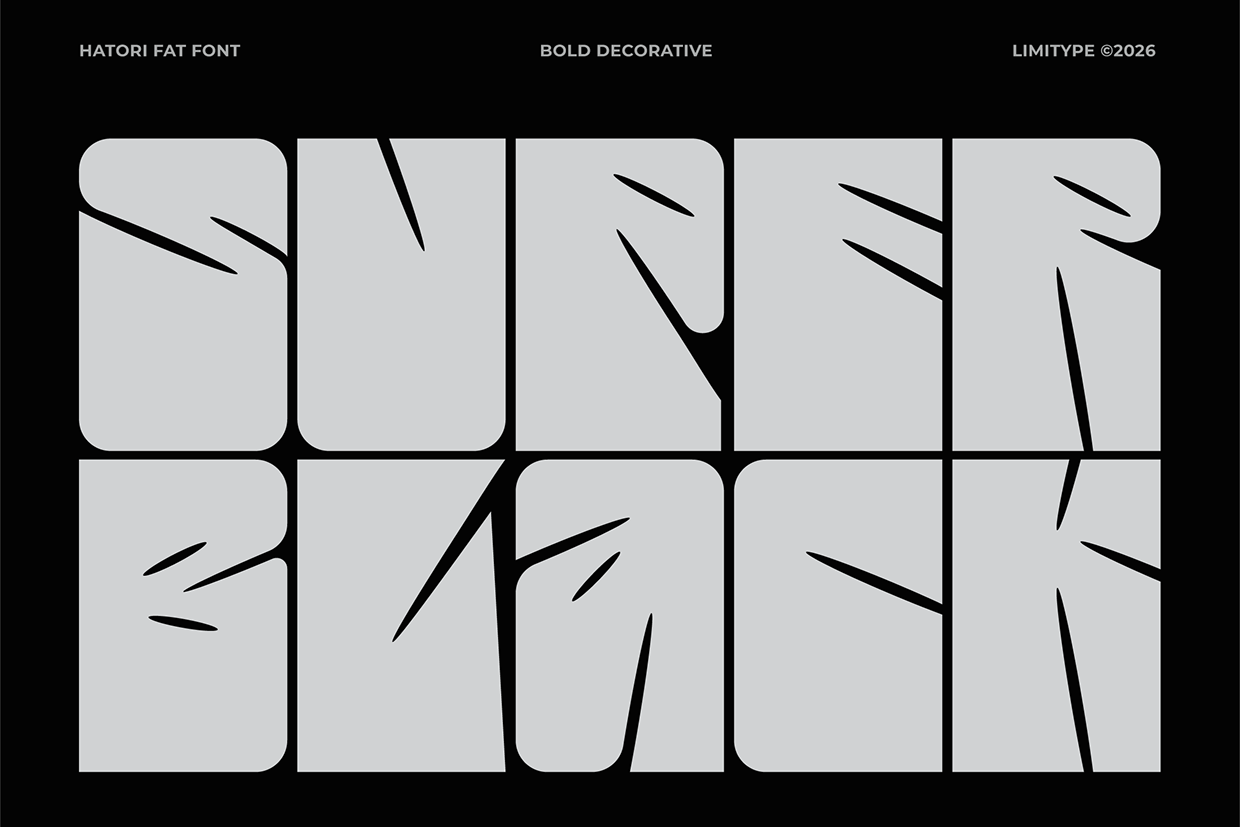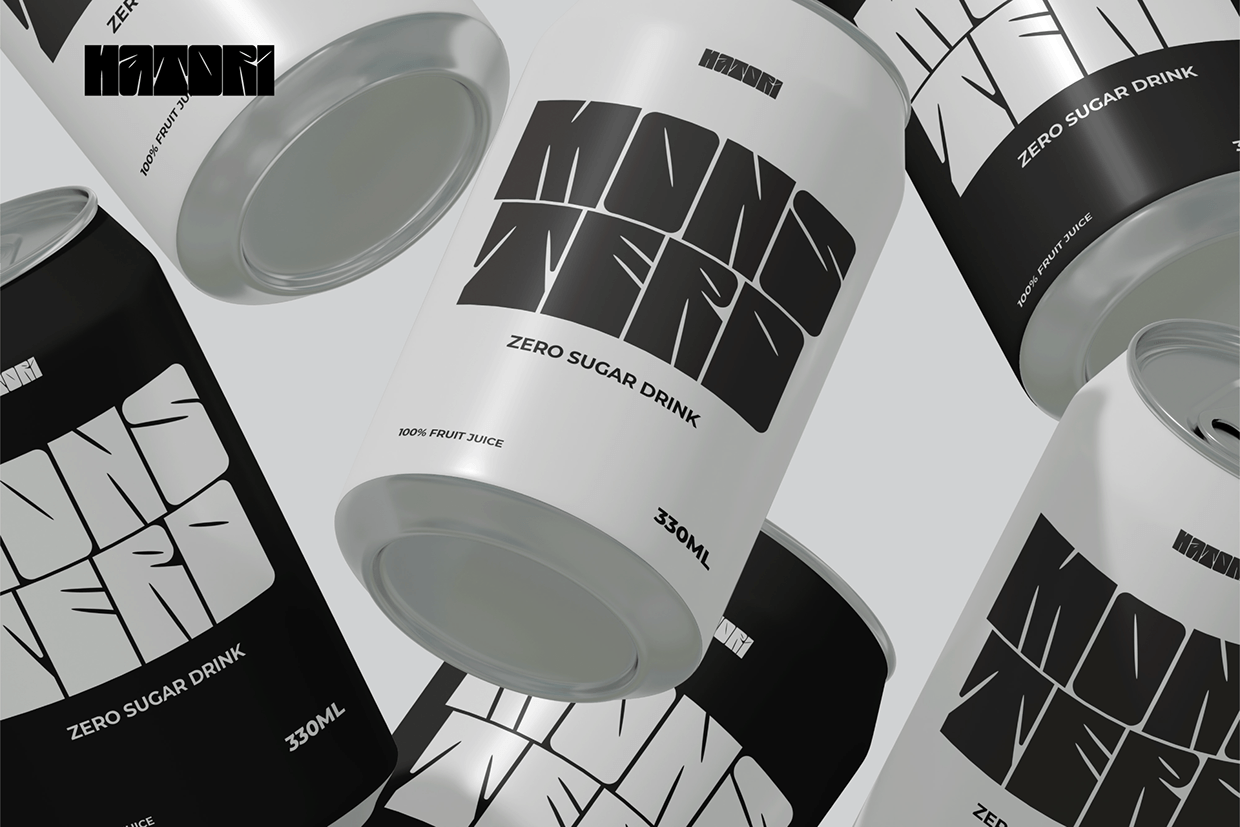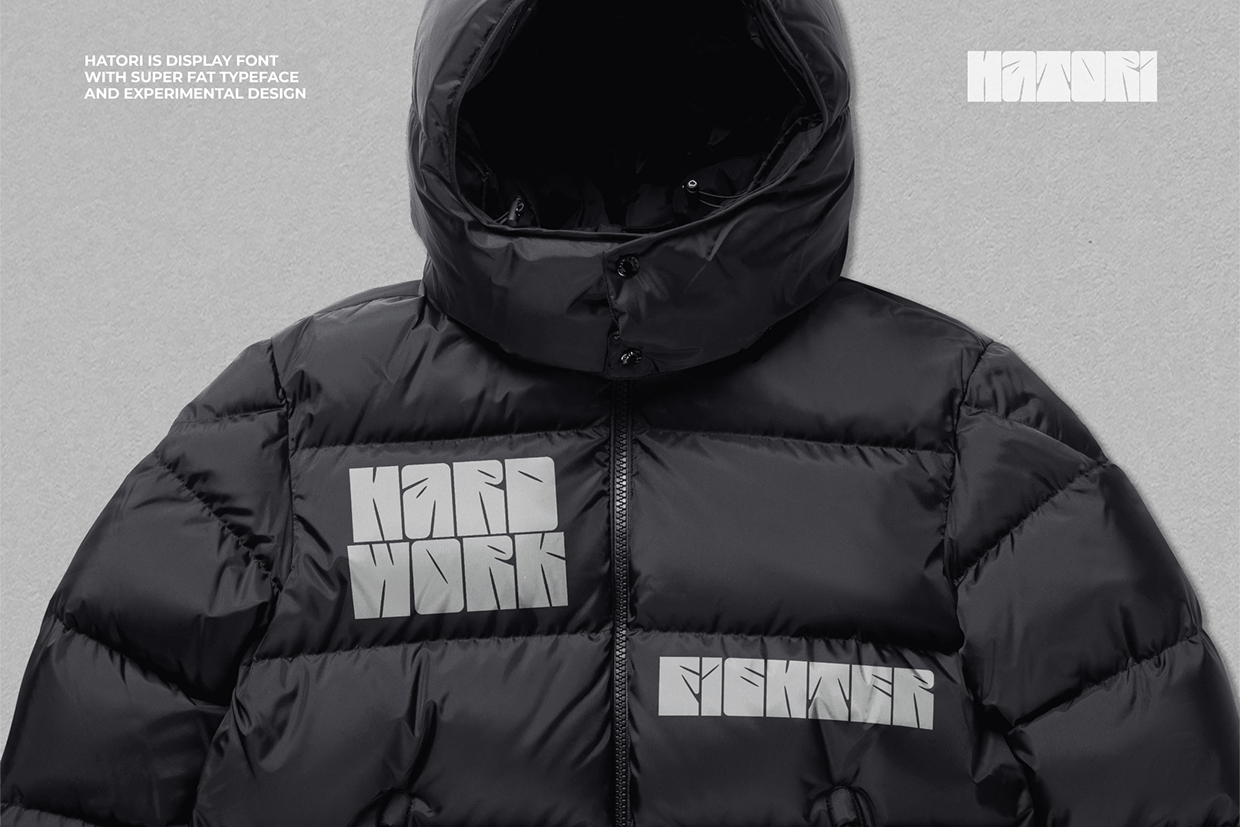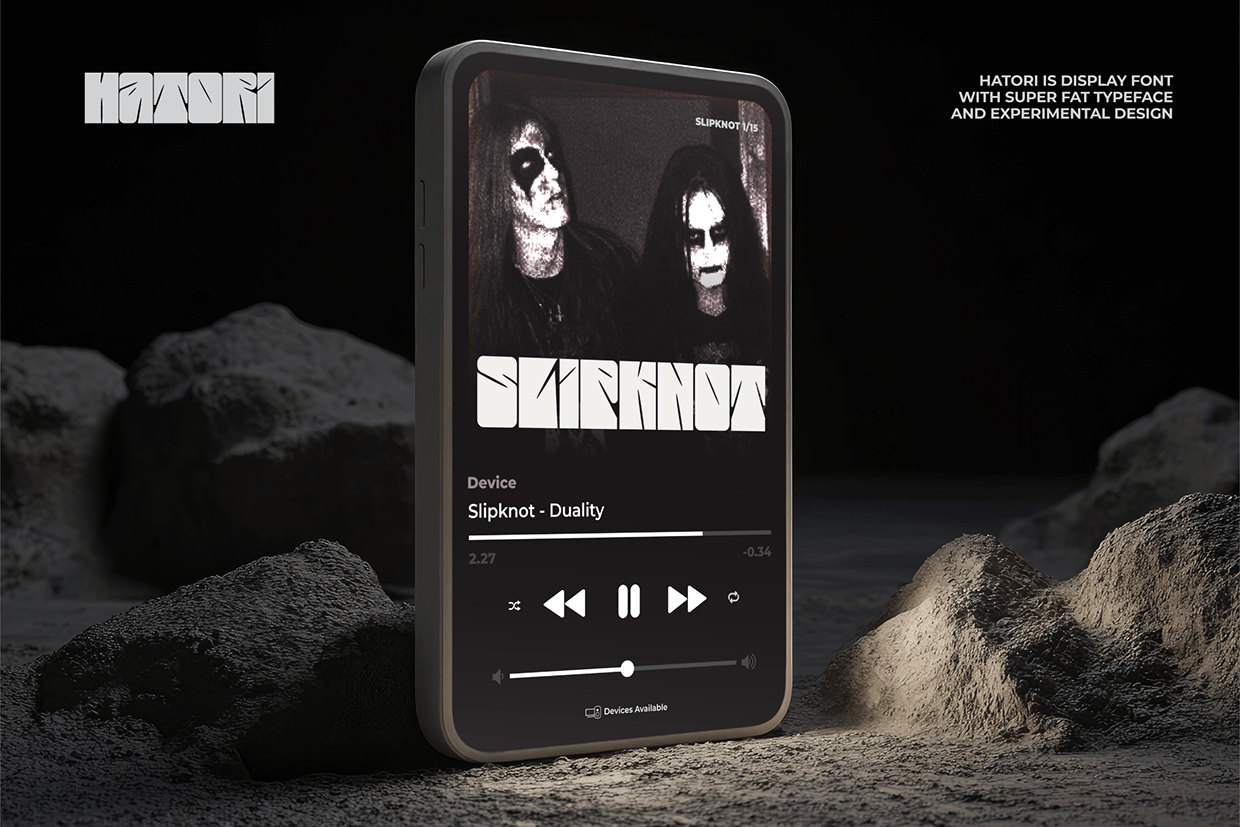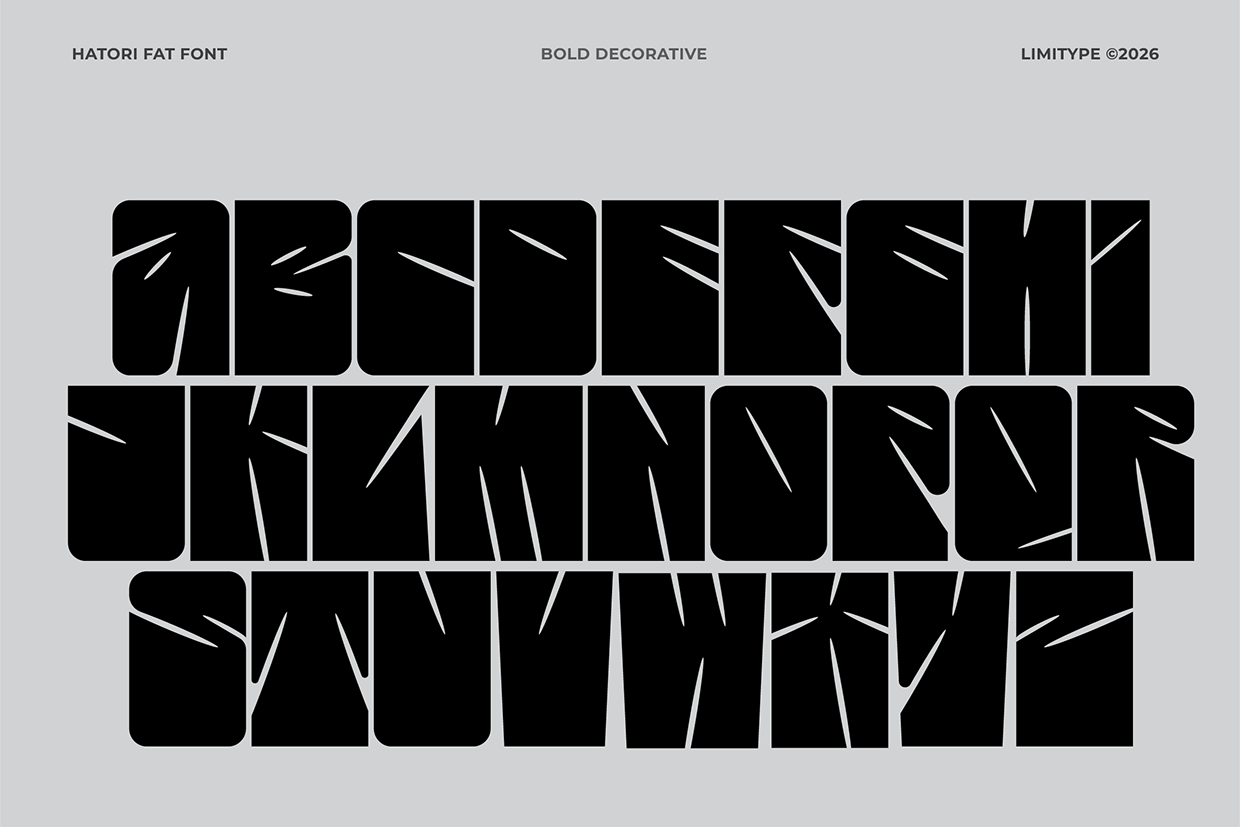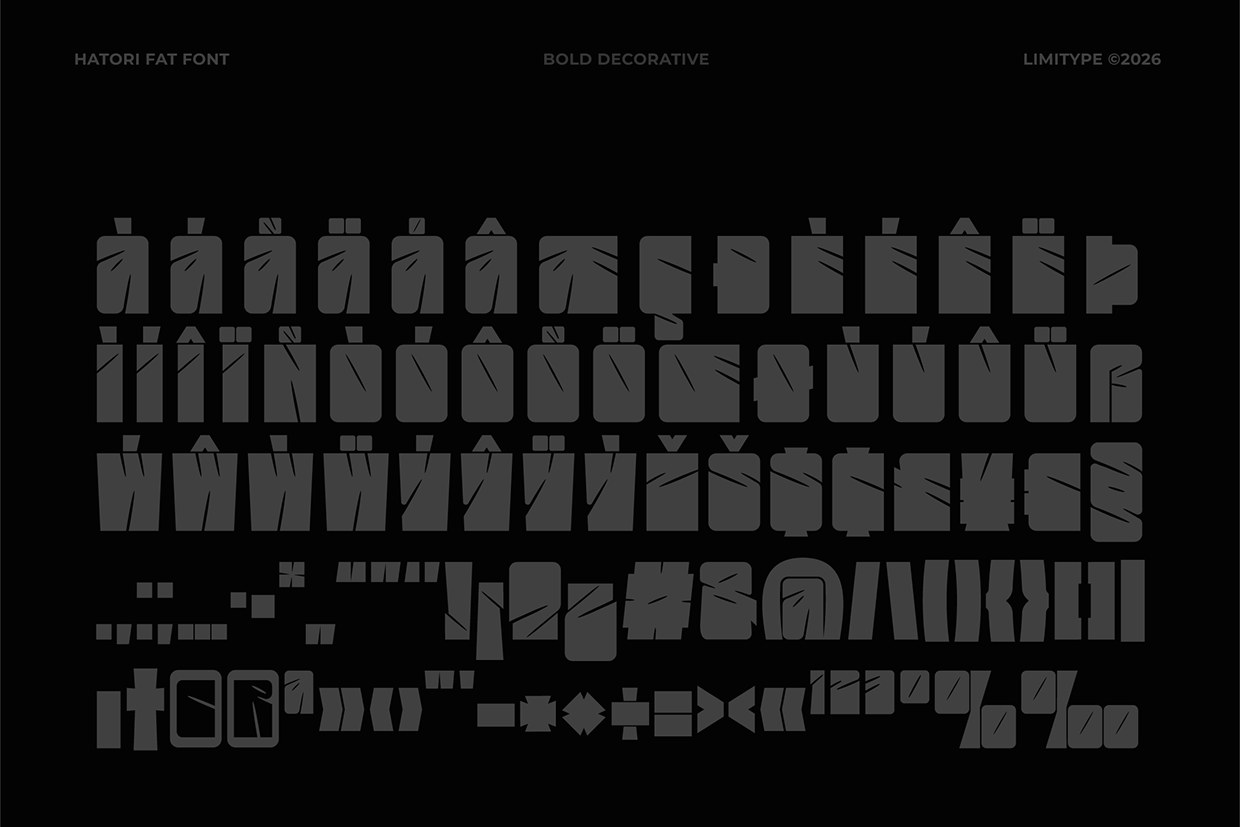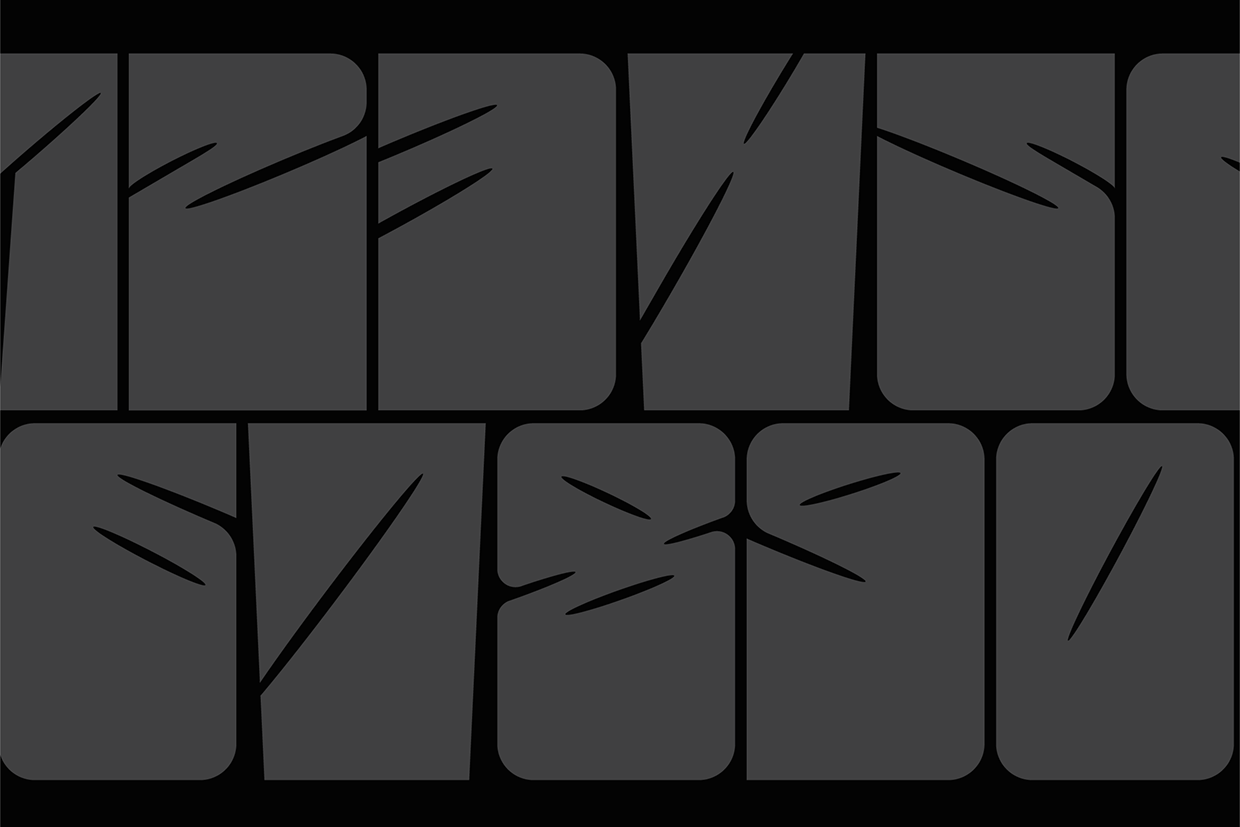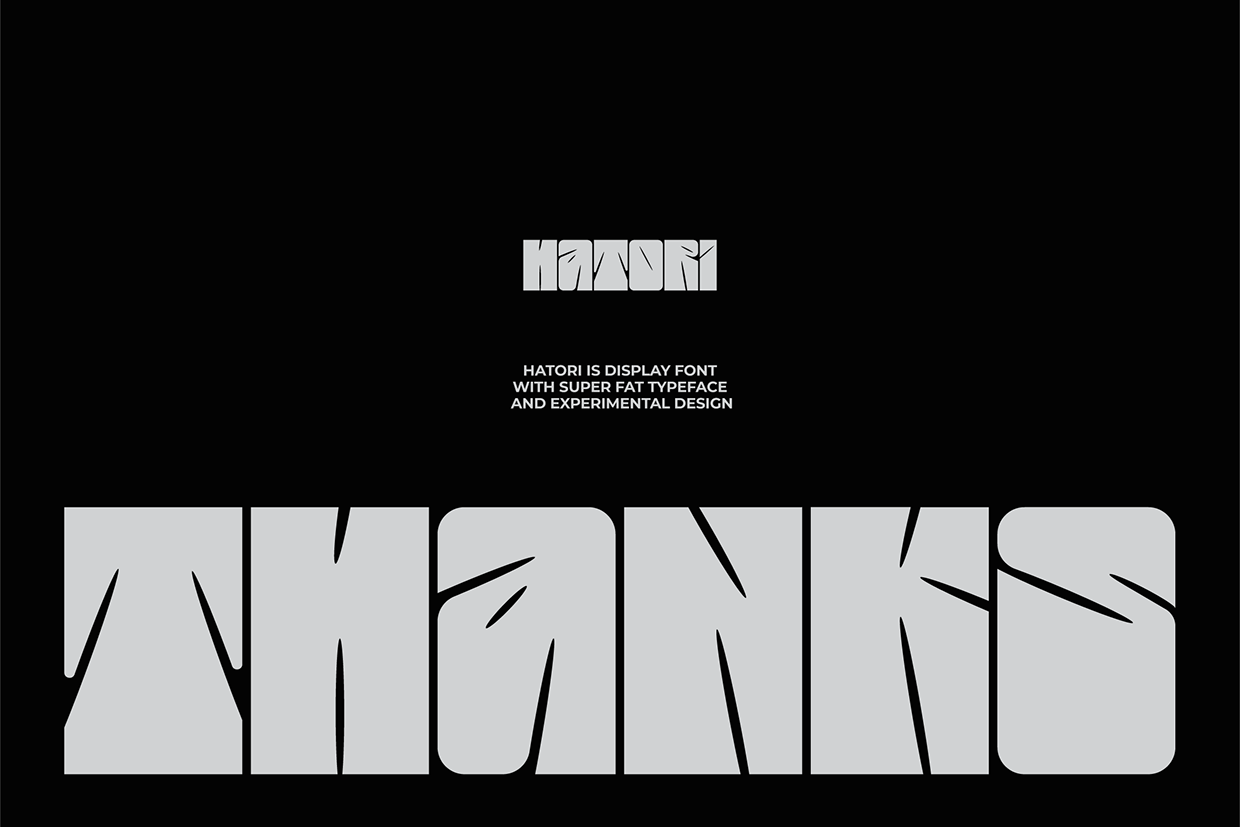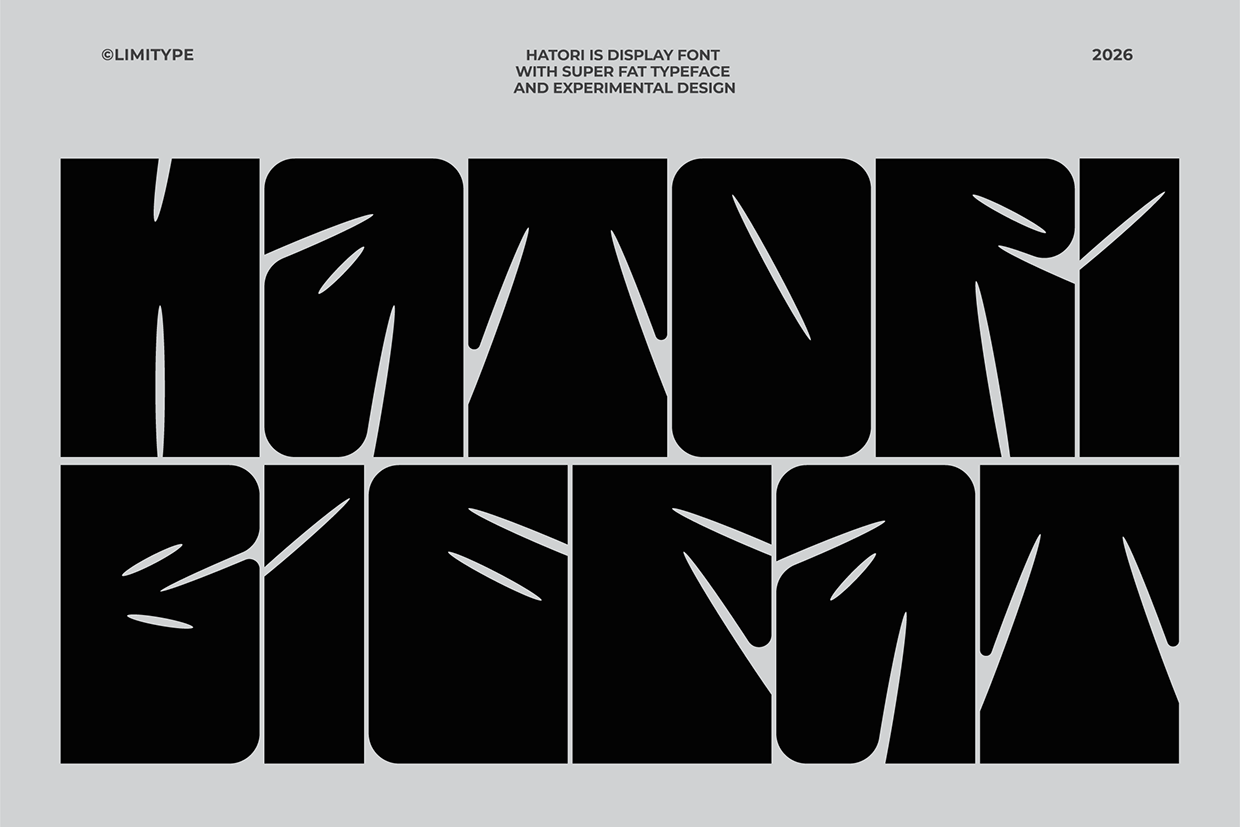
Hatori - Display Font
Hatori Fat is an extra-bold, condensed display font with sharp, aggressive, and modern character, designed to deliver strong visual impact. Suitable for headlines, logotypes, posters, merchandise, and branding that aims to stand out, this font ensures a bold, distinctive, and easily recognizable appearance across both print and digital media.